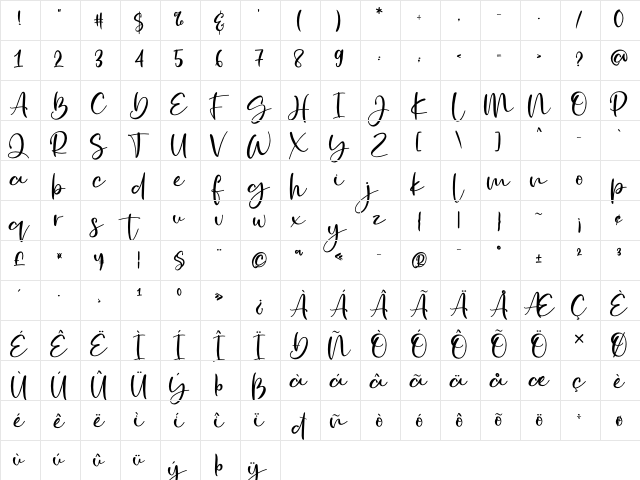
Golden Ballpoint Regular Font Preview
Golden Ballpoint Regular
Golden Ballpoint Regular Font Details
| Designer | Riyadh Rahman |
Design Context for Golden Ballpoint Typeface
Golden Ballpoint is a composed and adaptable typeface that performs quietly and consistently across a wide range of design contexts.